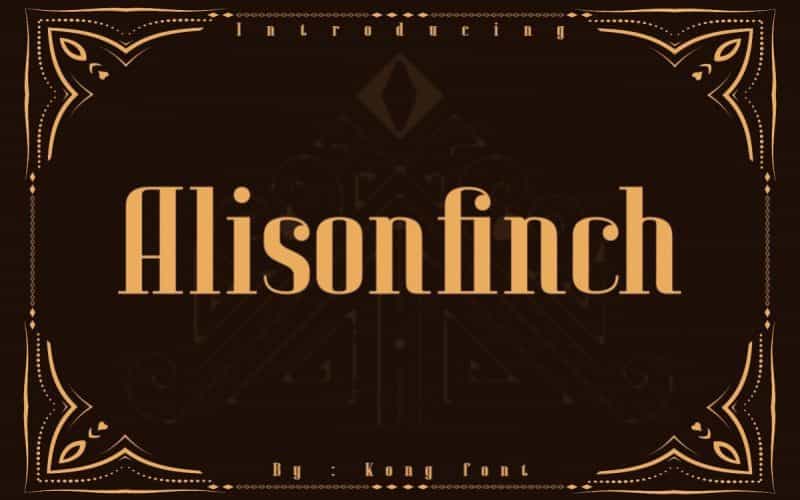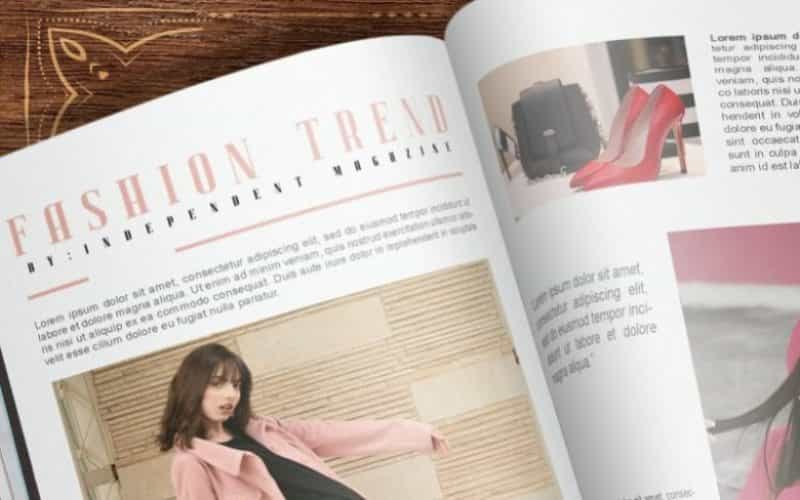
Alison Finch is an elegant serif display font. This amazing font is a modern interpretation of the traditional calligraphy. Alison Finch is the best font to use in creating your own unique and great designs.